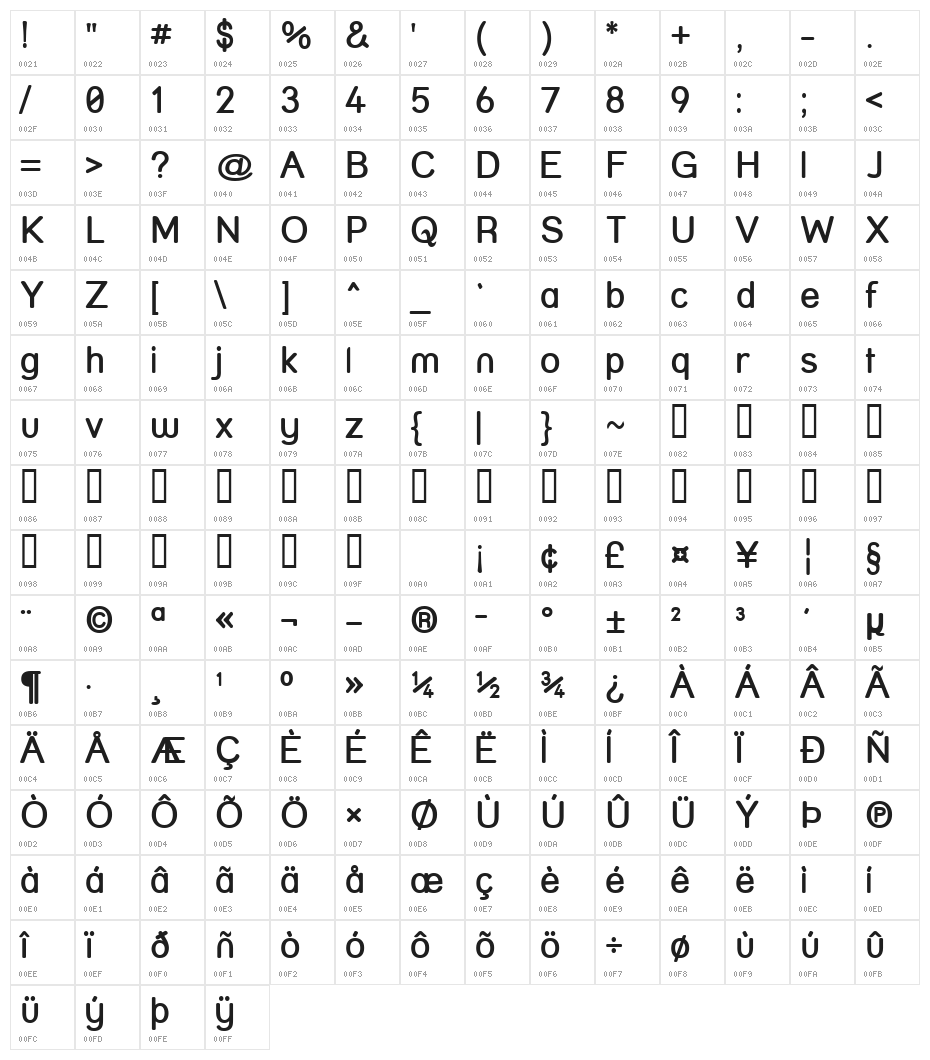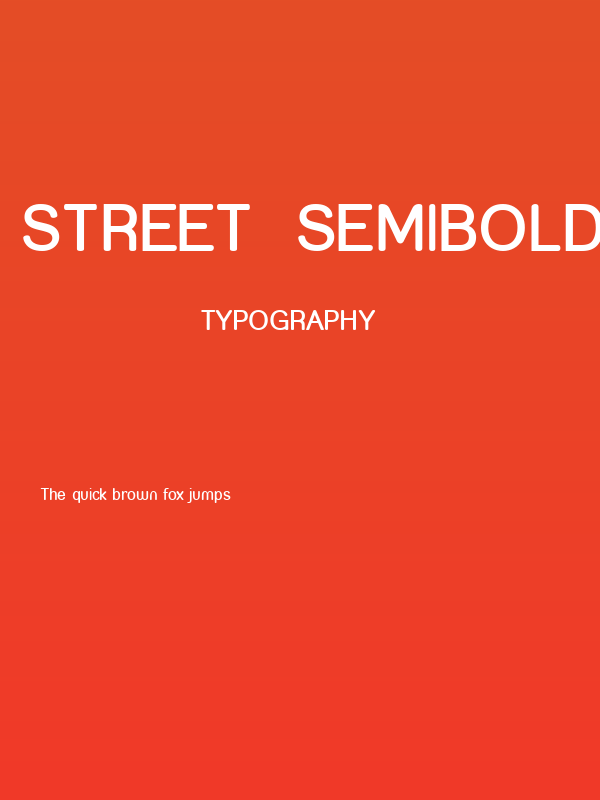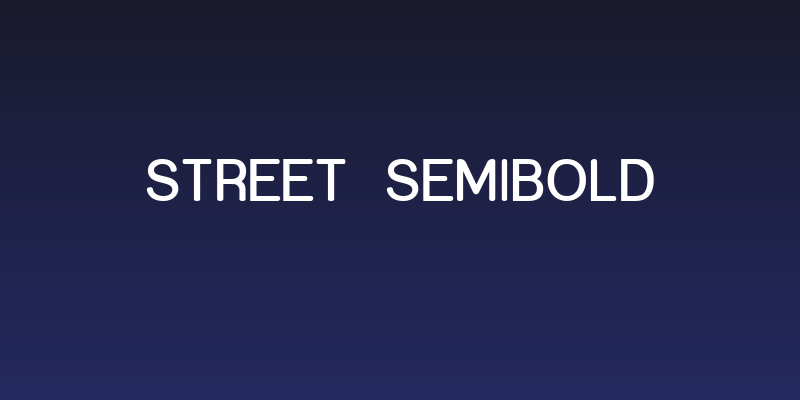
Street SemiBold Font
Street SemiBold Description
This font features a clean and modern sans-serif style with smooth curves and a semi-bold weight. The characters are well-proportioned, offering a balanced and harmonious appearance. The uppercase letters are slightly taller than the lowercase, providing a clear distinction. The numerals are consistent in height with the uppercase letters, ensuring readability. Special characters are designed with the same attention to detail, making them easily recognizable. The overall design is versatile, suitable for various applications where clarity and modernity are desired.
| Proposed Projects | Ideal for branding, signage, digital interfaces, and editorial design. |